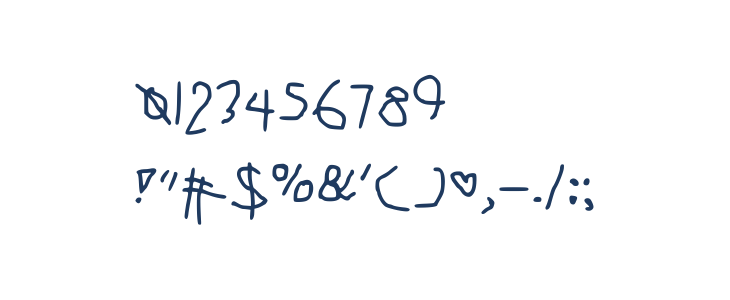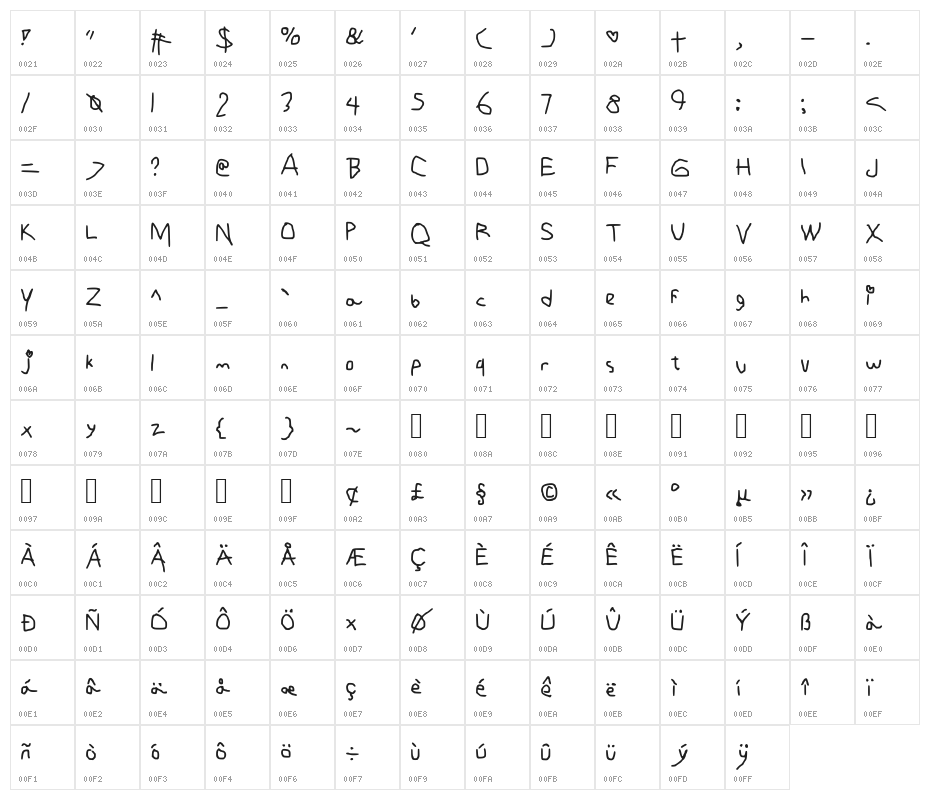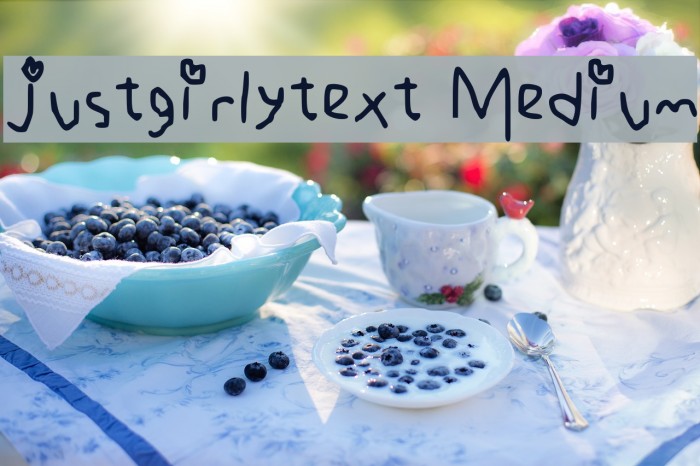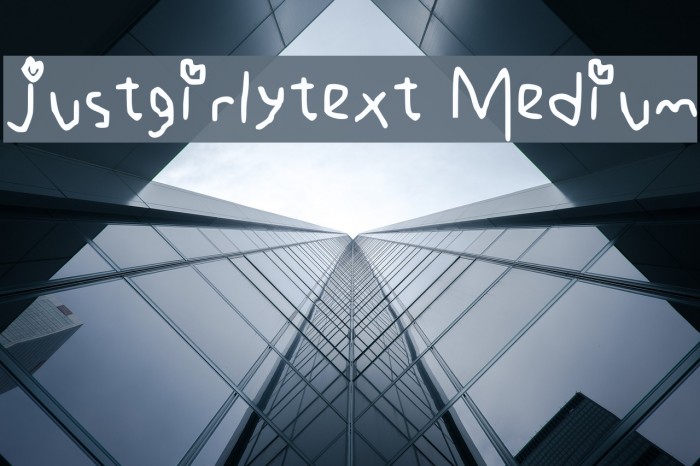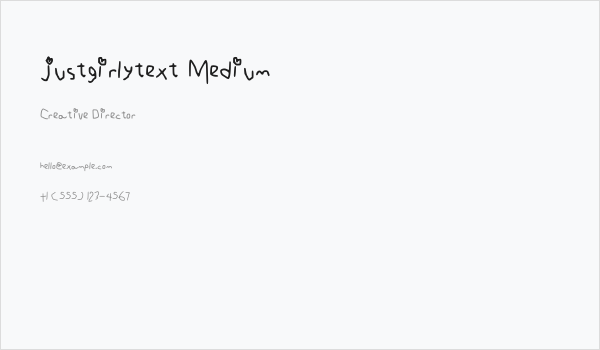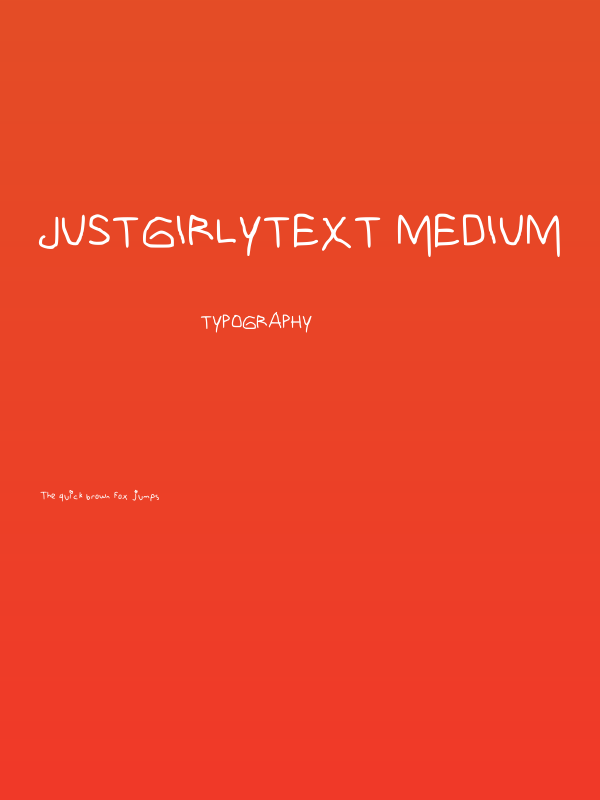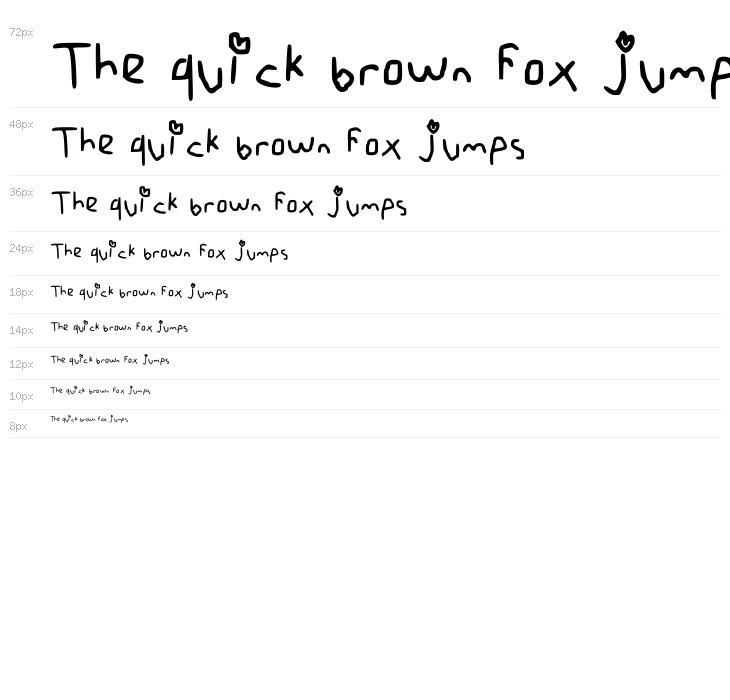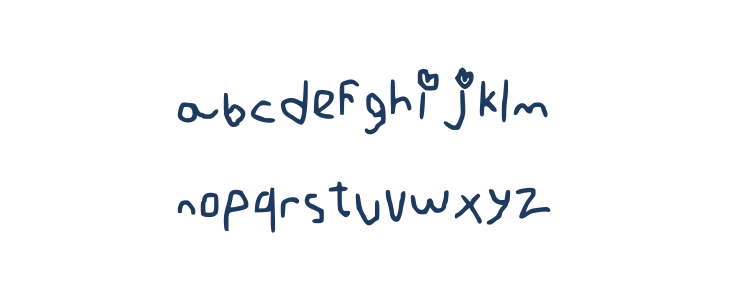
justgirlytext Medium Font
justgirlytext Medium Description
This playful and whimsical font features a handwritten style that exudes a casual and friendly vibe. The characters are uneven and slightly irregular, giving it a personal touch reminiscent of doodles or notes in a diary. The uppercase and lowercase letters maintain a consistent style, with rounded edges and a slightly tilted appearance. The numbers and special characters follow the same informal aesthetic, making the font suitable for creative and fun projects. Its unique charm makes it stand out, ideal for designs that aim to convey warmth and approachability.
| Proposed Projects | Ideal for greeting cards, children's books, personal blogs, and playful branding. |